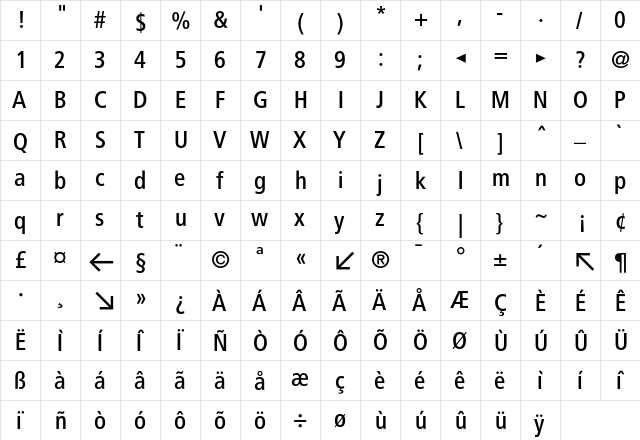
BVGNegAuf Regular
Design Context for BVGNegAuf Typeface
BVGNegAuf is a composed and adaptable typeface that performs quietly and consistently across a wide range of design contexts.
First published in 1993, this typeface is available in OpenType (OTF) format.